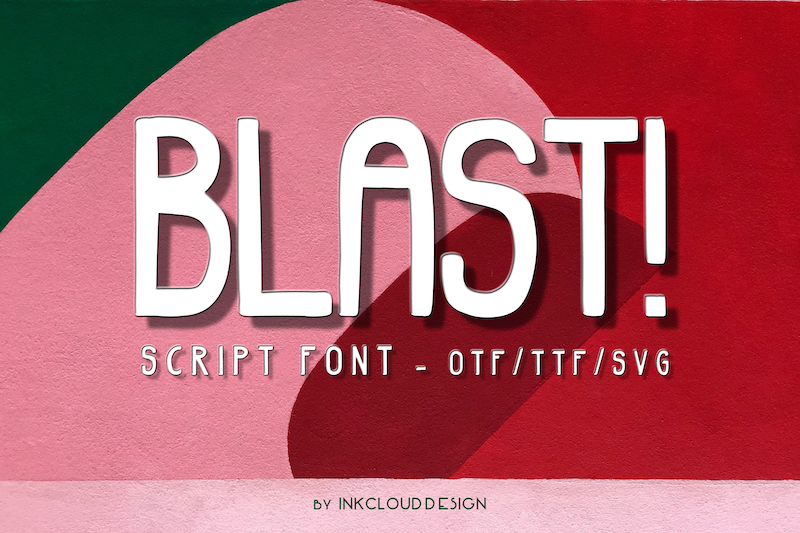
Blast is a cheerful and charming script font with a unique twist. Get inspired by its unique feel, and add a warm and friendly feel to any design idea. Blast comes in lowercase, uppercase, numbers, and special characters. The commercial version of his font comes in the following formats : OTF, TTF and SVG. You can support my work and download the commercial version here :https://fontbundles.net/inkclouddesign/704792-sans-serif-script-font-blast-all-purpose-handwriti?_ga=2.268319502.1816890166.1592818215-112916612.1591778704 Be creative and have fun ! 🙂 If you have questions or requests, feel free to send me a message. Find me at @InkCloudDesign on Fontbundles, Creative Fabrica & Etsy. |